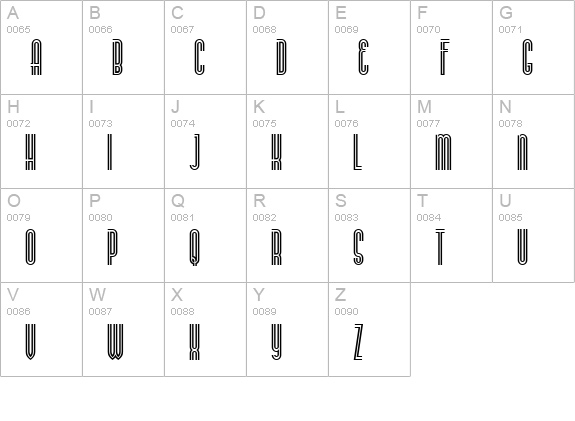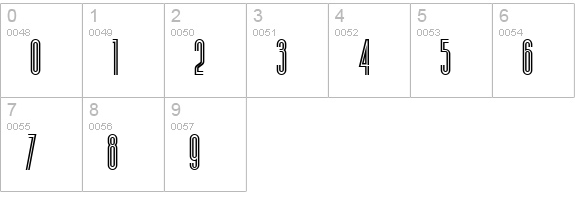
Buenos Aires NF is a stylish and elegant typeface that exudes sophistication and charm. With its sleek lines and classic design, this font is perfect for a wide range of design projects, from branding to web design to print materials. The clean and modern look of Buenos Aires NF will instantly elevate any project and give it a touch of class. What makes Buenos Aires NF even better is that it is completely free to download at FontsMarket.com. That's right, you can get your hands on this beautiful font without spending a dime. Whether you're a seasoned designer looking to add a new font to your collection or a beginner just starting out, Buenos Aires NF is a fantastic choice that won't break the bank. So why wait? Head over to FontsMarket.com now and download Buenos Aires NF for free. Give your projects a touch of elegance and style with this stunning font today!